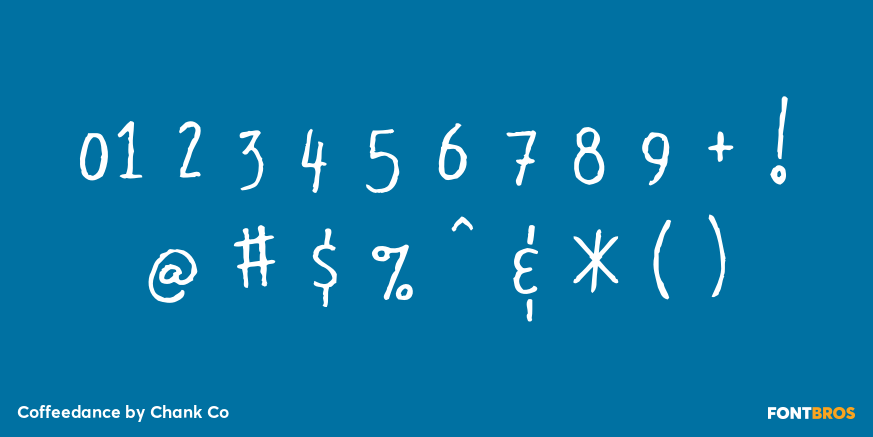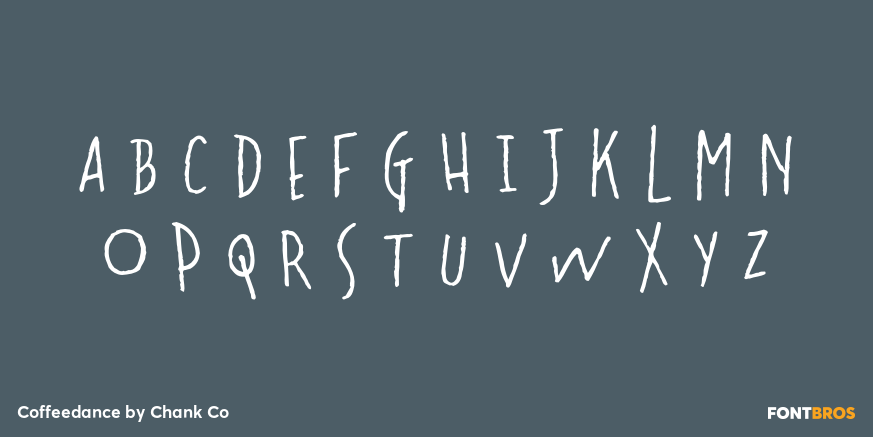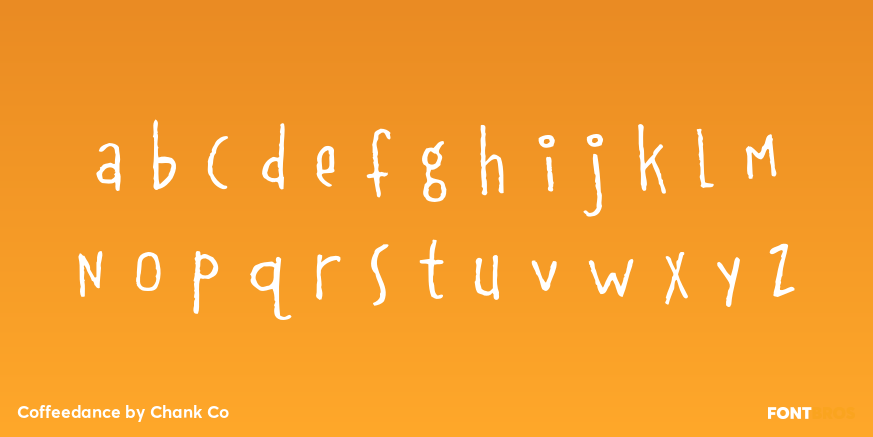
Coffeedance
Font Family by Chank Co
Coffeedance is a fun, light, dancing, dandy handmade font. Makes me think of frozen treats as the lines wiggle a bit like they're shivering. Brrrr.